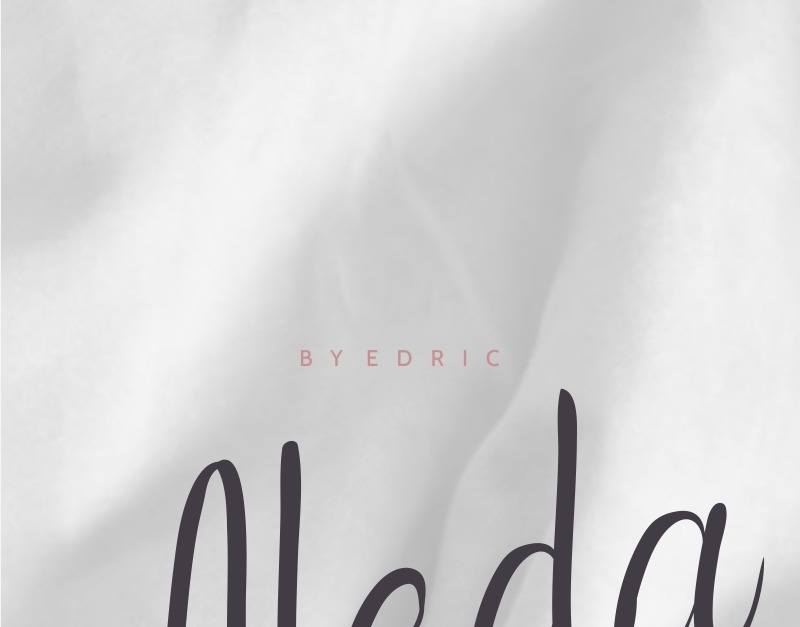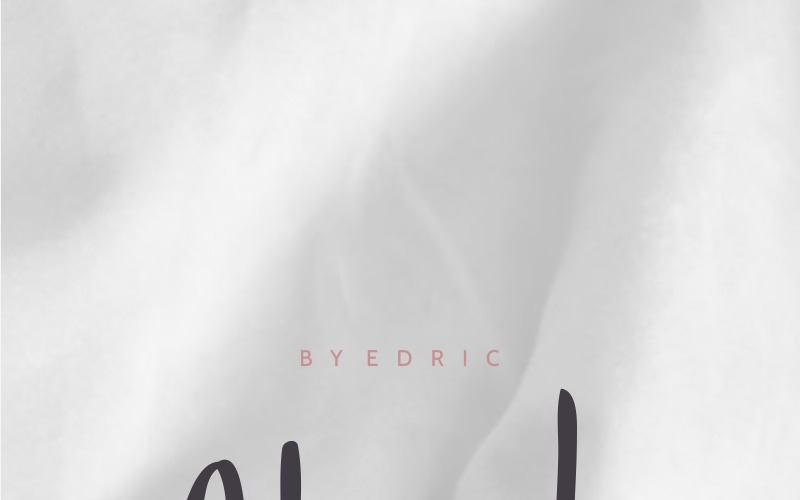
Aleda Font
Hi Everyone! Introducing our newest font : Aleda ! This is a new modern script handwriting feminine signature style font. It has a fresh, elegant, natural and stylish glyph. Will be perfect for any handwritten project or comic or branding.
It is a sophisticated styling font which will be great for branding, logo, photography , signature, watermark etc. It is so elegant, classy, strong and beautiful.